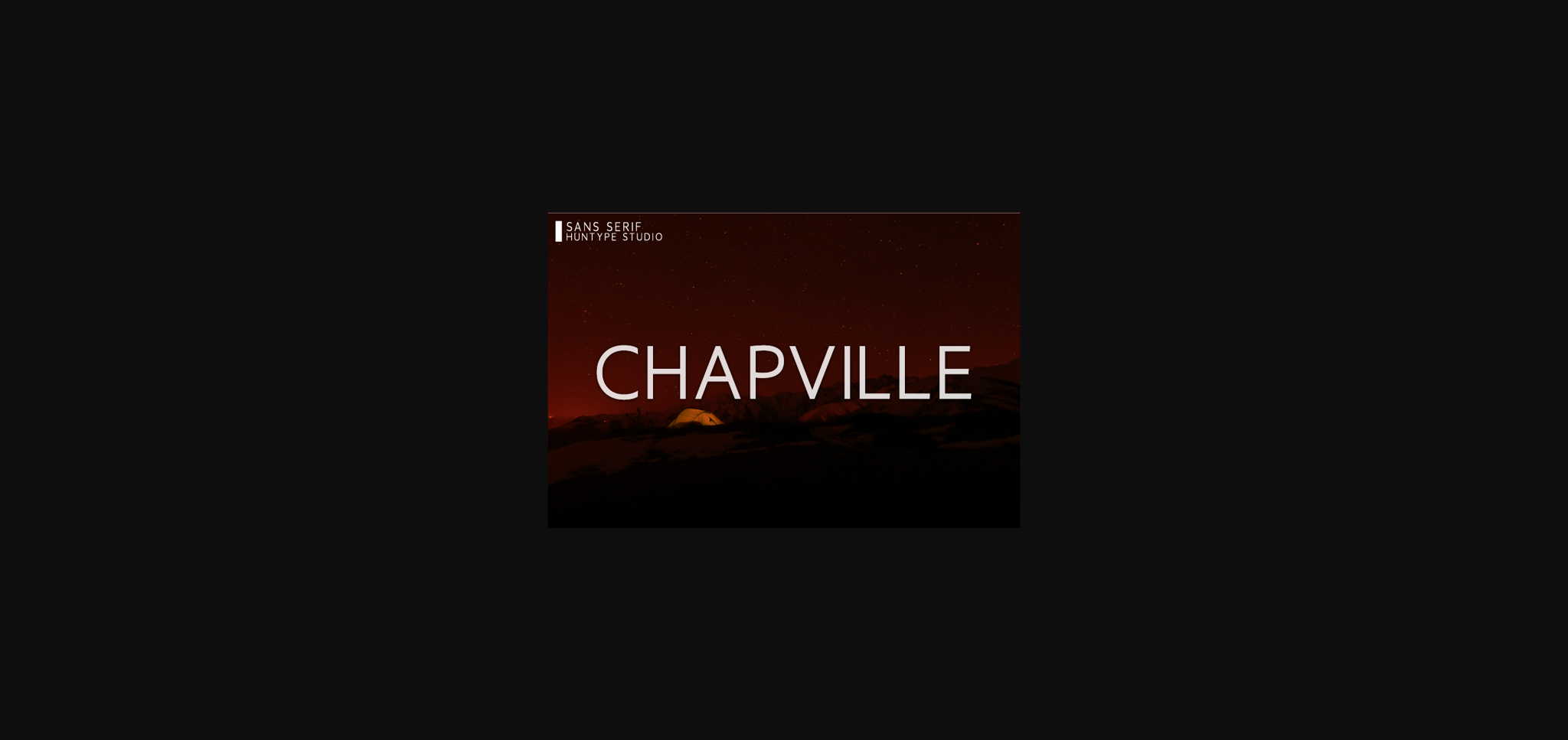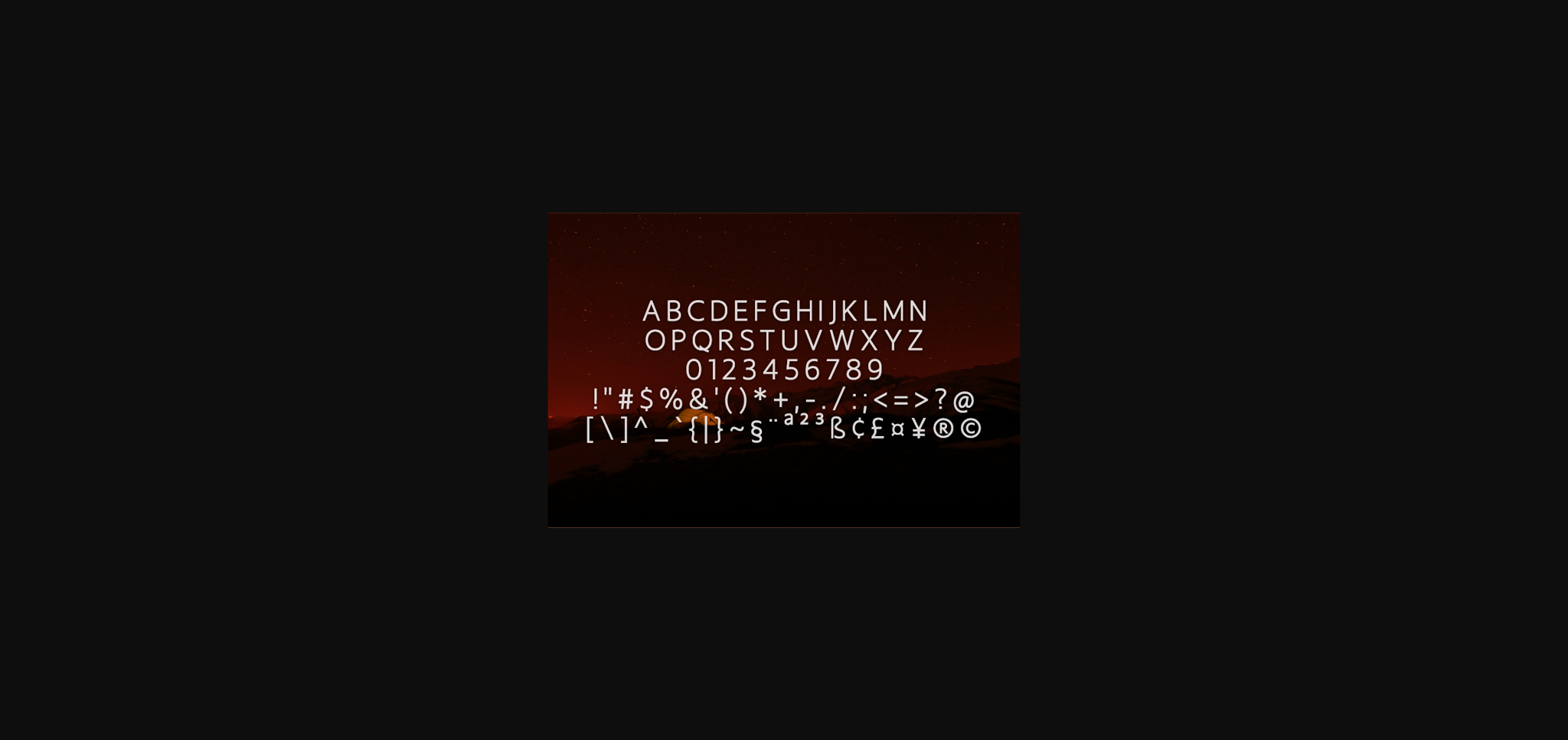
About Chapville Font
Chapville is a modern and clean sans serif font that is versatile and looks great in just about any context. With smooth and clean lines, and just a touch of contrast, Chapville works beautifully for logos, branding, web headings and much more.